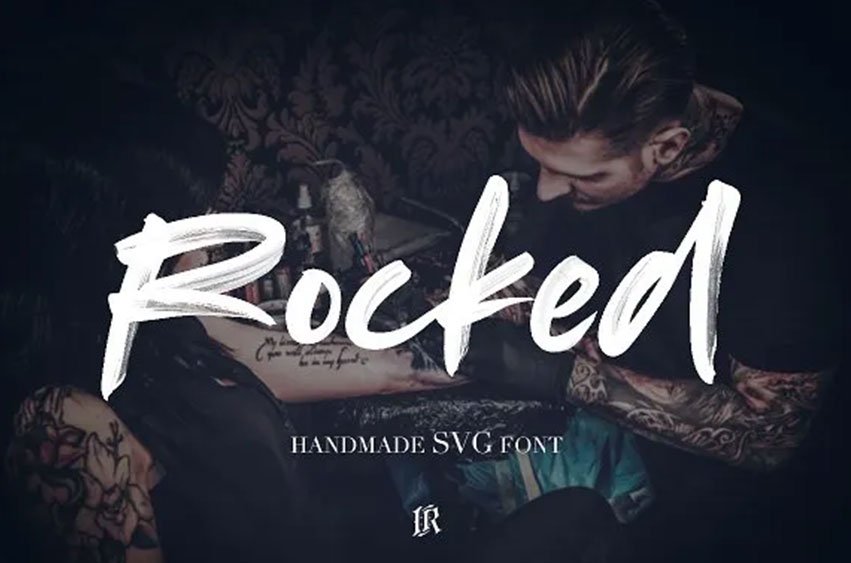
Rocked SVG Font preserves all the high-definition detail of the original handwritten letters. Using OpenType-SVG technology it truly looks realistic. The OpenType-SVG format requires Photoshop CC 2017 or Illustrator CC 2018 (or newer). Regular OTF format is also included.